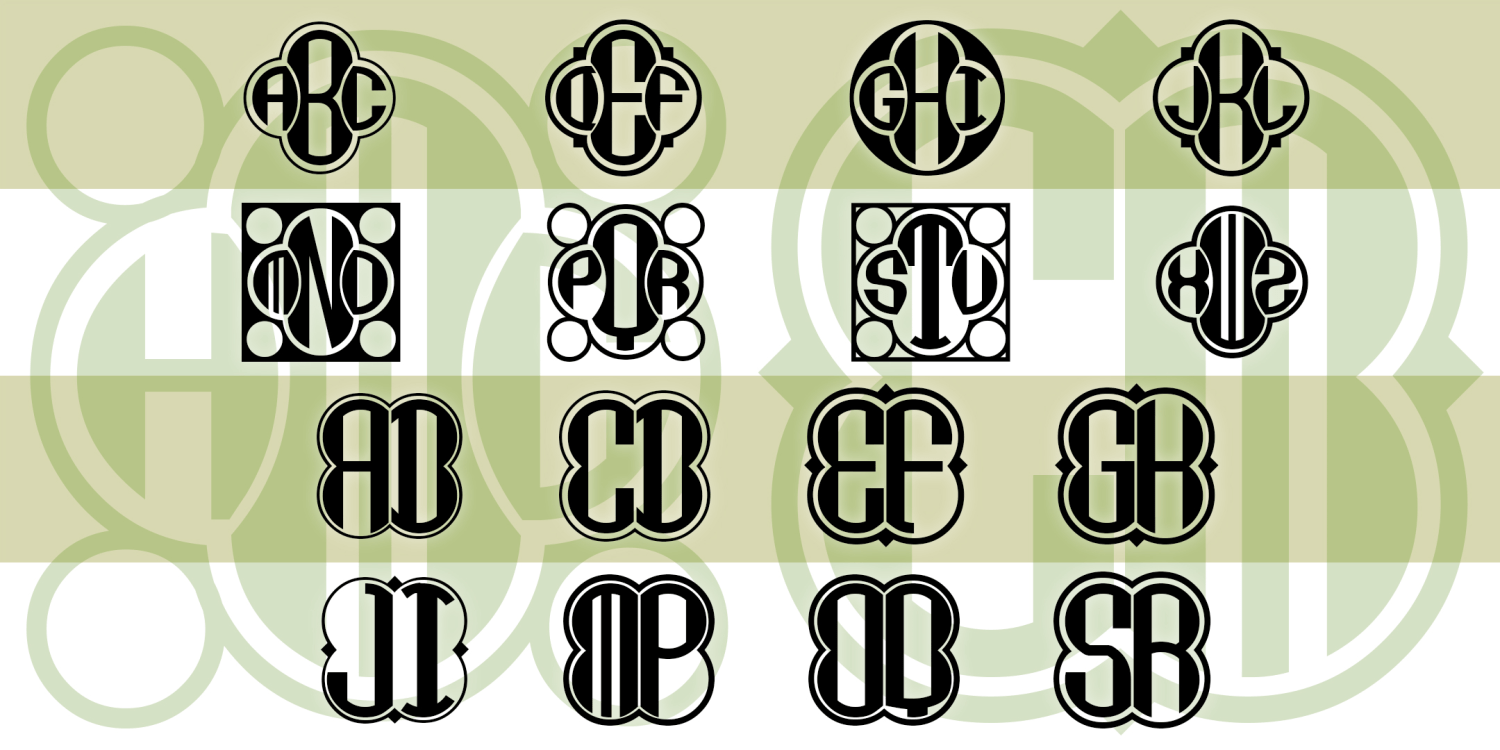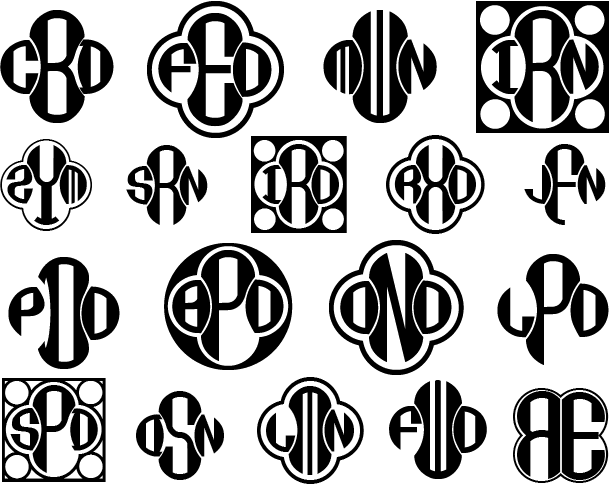
Clover Monograms
CLOVER MONOGRAMS is a set of 2 fonts that let you create custom 2- and 3-letter monograms within a clover shape with a choice of decorative frames.
Clover Monograms Two
Clover Monograms Three